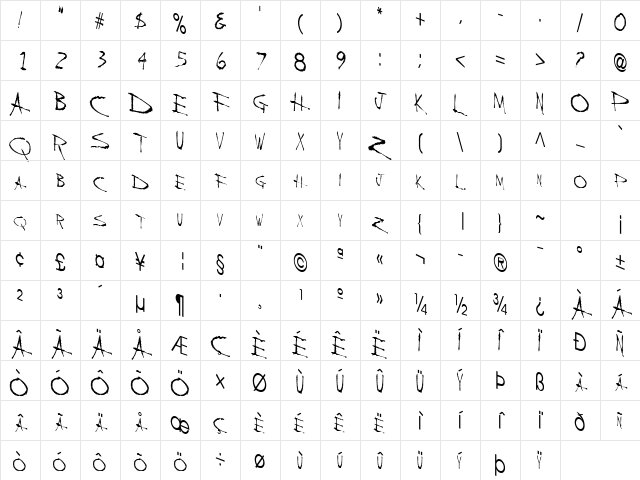
Back Regular
Design Context for Back
Back is a composed and adaptable typeface that performs quietly and consistently across a wide range of design contexts.
Pro Tip: Use Back in both headline and body roles to test its range before committing to a single application.